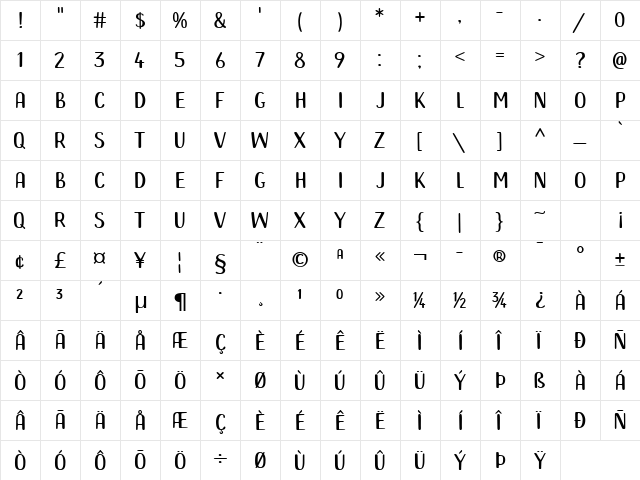
Mango Chutney Regular
Design Context for Mango Chutney Typeface
Mango Chutney is a composed and adaptable typeface that performs quietly and consistently across a wide range of design contexts.